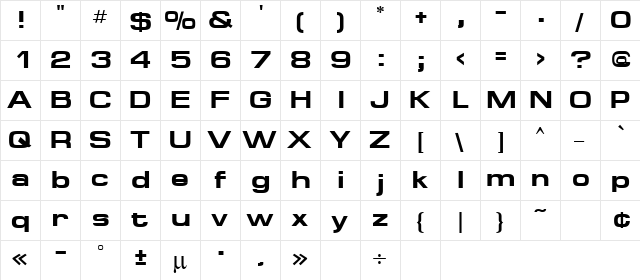
Federation Bold Font Preview
Federation Bold
Design Context for Federation Typeface
Federation takes a measured approach to typography — its balanced proportions and neutral character make it a reliable workhorse for both digital and print work. Its bold stroke weight gives it real presence on the page.